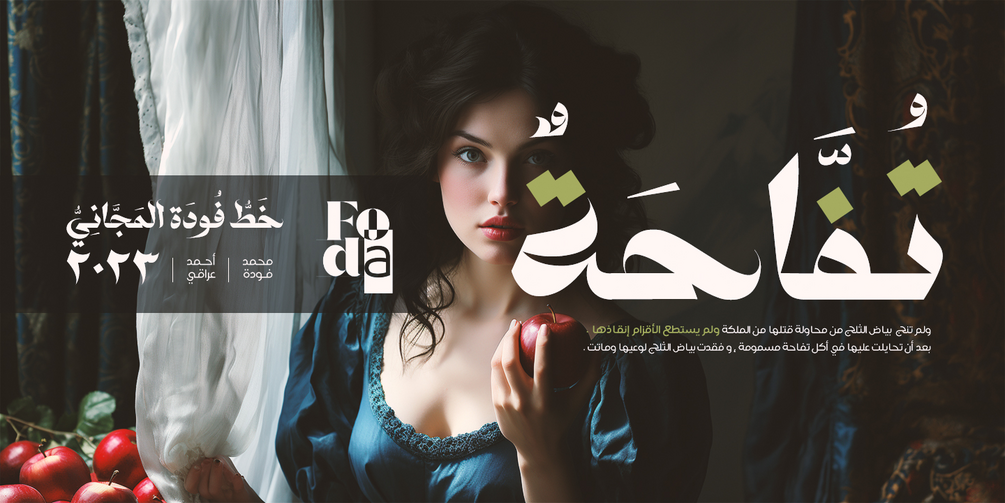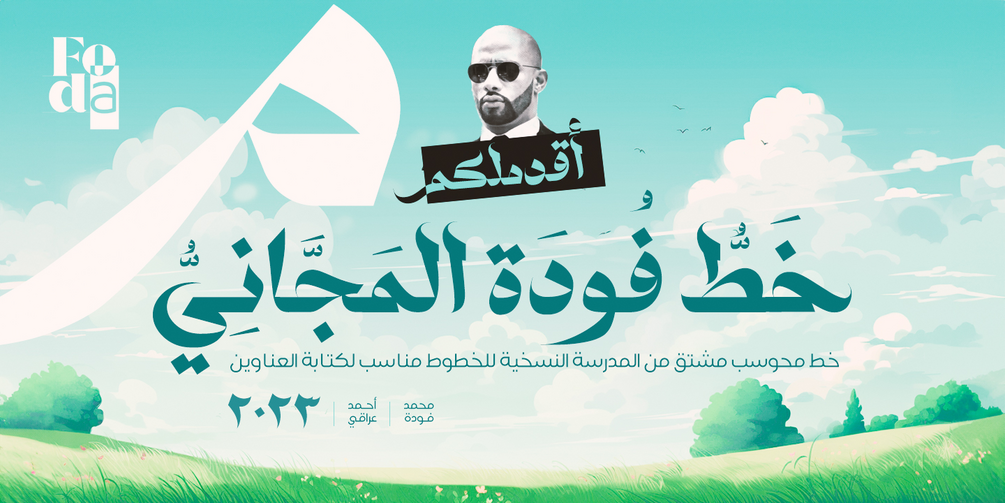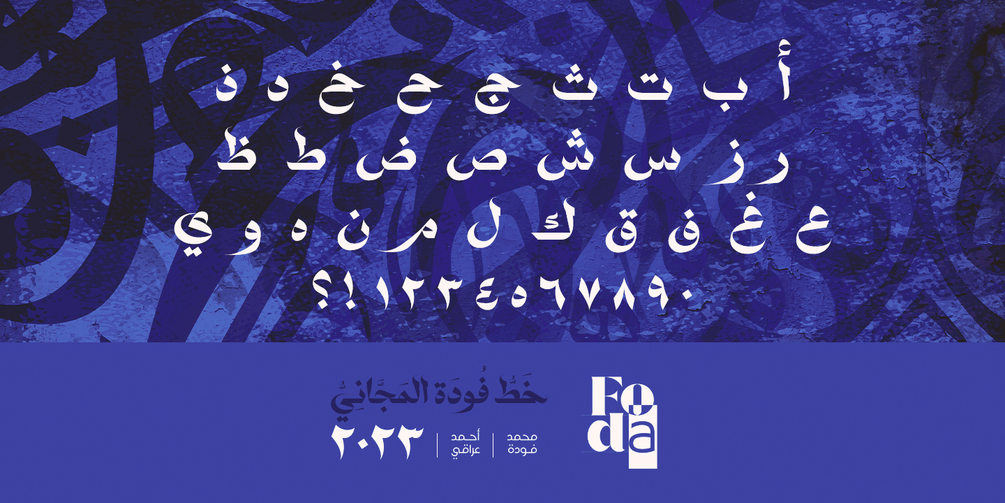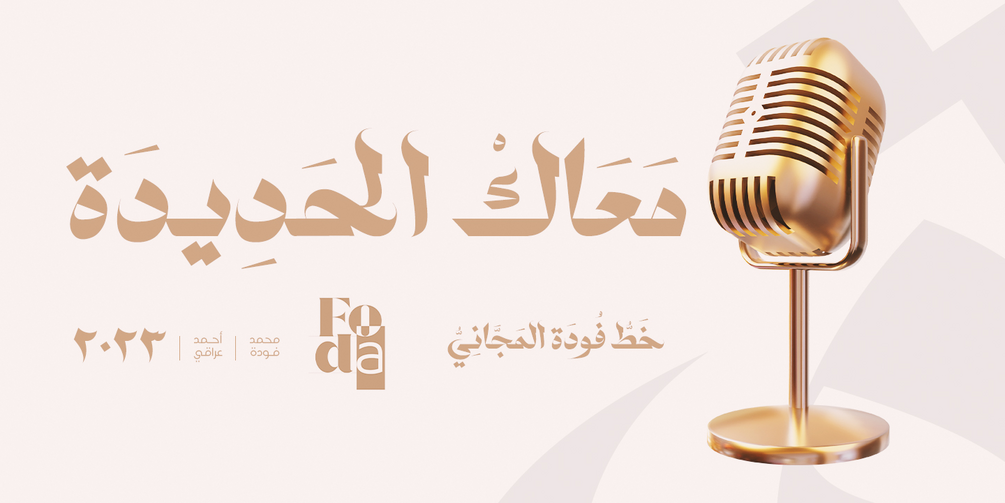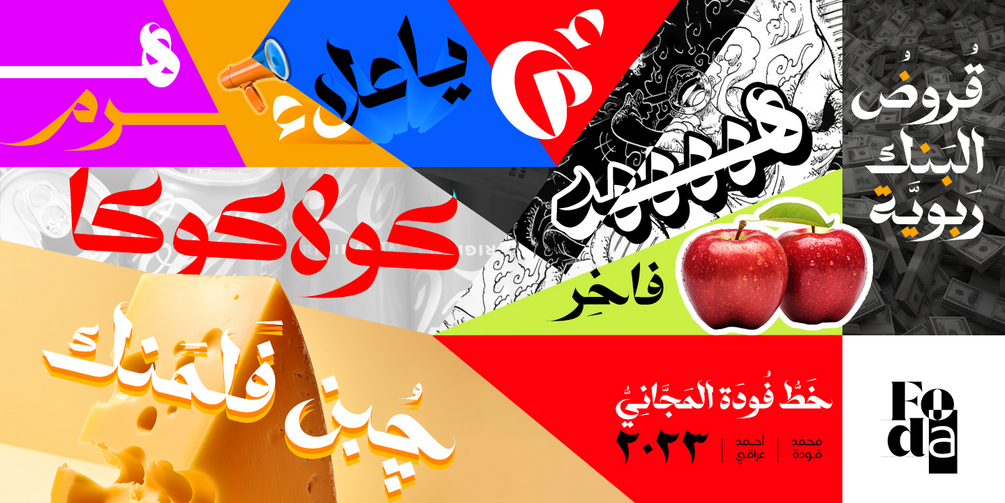
Foda Free Font
FodaFree Font is an Arabic typeface that derived from Naskh school of calligraphy.
FodaFree Font comes in a single weight suitable for headlines and more.
FodaFree Font is an Arabic typeface that derived from Naskh school of calligraphy. FodaFree Font comes in a single weight suitable for headlines and more. We made a great effort to provide such typeface that meets your expectations.